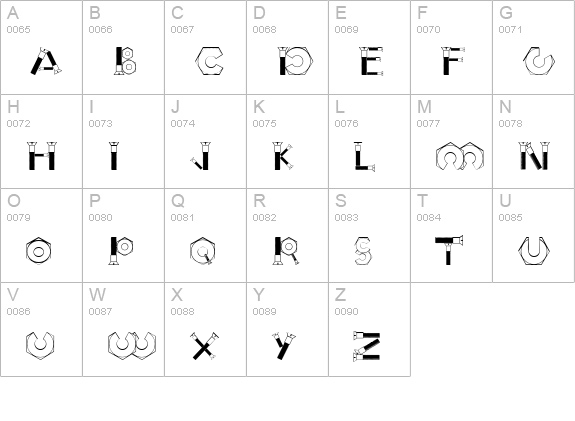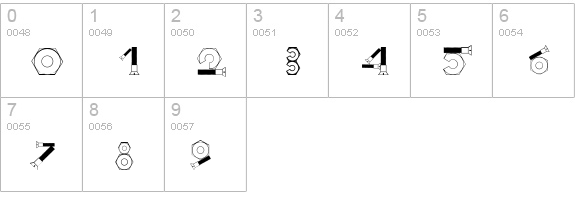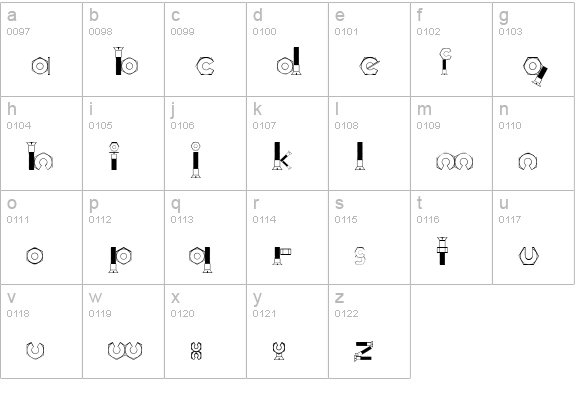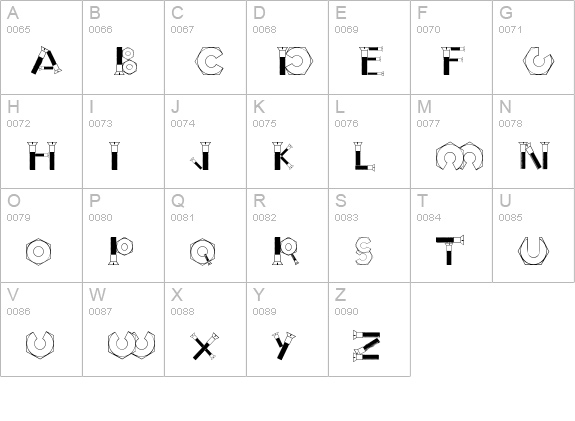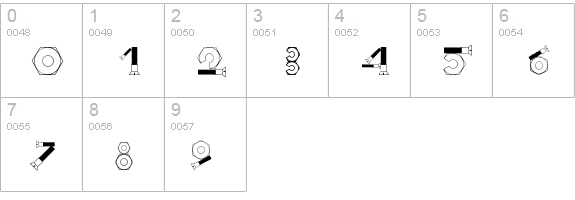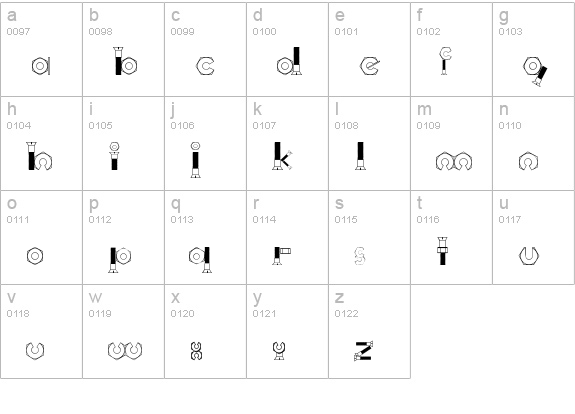
Boulons Tryout Font Details
Boulons Tryout font is a stunning display typeface that brings a unique and modern touch to any design project. With its bold and eye-catching letterforms, this font is perfect for headlines, logos, posters, and more. Boulons Tryout font is versatile and can be used in various design contexts, adding a touch of sophistication and style. The best part is that Boulons Tryout font is available for free download at FontsMarket.com. This means you can easily access this beautiful font and use it in your projects without any cost. Don't miss out on this amazing opportunity to enhance your designs with the elegant and stylish Boulons Tryout font. Download it today and elevate your design work to the next level!